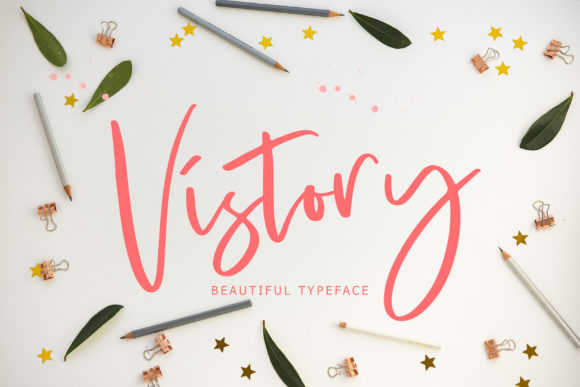
Vistory Font: Elevating Small Business Branding
As a small business owner, finding the perfect typeface to represent your brand’s unique voice is often one of the most critical design decisions you will make. Vistory is an exquisite handwritten font that serves as a versatile foundation for entrepreneurs seeking to balance elegance with modern accessibility in their visual identity. When we talk about Script Handwritten styles in the context of commercial branding, we are looking for more than just decoration; we need a tool that communicates trust and personality instantly. This specific typeface stands out among Fonts because it bridges the gap between traditional calligraphy and contemporary design needs, making it an invaluable asset for everything from product packaging to social media content.
Vistory for Product Packaging and Label Design
Integrating Vistory into your physical goods requires understanding how this Script Handwritten style translates from screen to print on tangible materials. For makers and sellers, packaging is often the first physical touchpoint a customer has with your brand, and using premium Fonts like this one can significantly elevate the perceived value of your items. The masterful design ensures that even when scaled down for ingredient lists or care instructions, the letterforms retain their integrity and charm without becoming illegible clutter.
Consider the practical application for a handmade candle business or an artisanal bakery. You might use Vistory for the primary product name on the label to evoke warmth and craftsmanship, while reserving a clean sans serif for the regulatory text. This contrast not only aids readability but also creates a visual hierarchy that guides the customer’s eye exactly where you want it. Because Vistory maintains classy calligraphic influences while feeling contemporary, it avoids looking dated or overly fussy, which is essential for brands targeting a modern demographic that still appreciates heritage and quality. Whether you are designing sticker seals, tissue paper patterns, or shopping bag stamps, this font provides a consistent thread of sophistication that ties disparate packaging elements together into a cohesive unboxing experience.
Enhancing Customer Trust Through Consistent Typography
Trust is built through repetition and recognition, and utilizing Vistory across your customer-facing materials helps establish a reliable visual rhythm. In the crowded marketplace of small business, consistency signals professionalism; when your thank-you cards, invoice headers, and shipping labels all share the same distinctive typographic voice, customers subconsciously register your brand as established and attentive to detail. This particular typeface excels here because its fresh aesthetic prevents your communications from feeling stuffy, while its structured calligraphic roots assure clients that they are dealing with a legitimate enterprise rather than a hobbyist.
- Thank-You Cards: Use Vistory for the "Thank You" header to add a personal, human touch that feels genuinely handwritten rather than digitally stamped.
- Business Cards: Apply the font to your name or business title to create a memorable first impression that distinguishes you from competitors using standard system fonts.
- Certificates and Guarantees: Leverage the elegant flow of the letters to make official documents feel special and valued by the recipient.
- Email Signatures: Incorporate a static image of your name in Vistory to bring brand consistency into digital correspondence without risking rendering issues across email clients.
Vistory for Social Media Graphics and Digital Marketing
Digital visibility relies heavily on stopping the scroll, and Vistory offers the visual weight necessary to capture attention in social media feeds and digital advertisements. As entrepreneurs managing our own marketing, we need Fonts that remain legible at thumbnail sizes while still conveying emotion and style within a square or vertical format. The contemporary freshness of this Script Handwritten typeface makes it particularly effective for Instagram stories, Pinterest pins, and Facebook ad overlays where space is limited and impact must be immediate.
When creating content for platforms like TikTok or Reels, using Vistory for text overlays can help reinforce brand recall even in video format. Unlike generic cursive fonts that may blur or become difficult to read against busy backgrounds, the deliberate construction of this font holds up well against photographic textures and video motion. For service providers such as coaches, photographers, or consultants, using this typeface in quote graphics or testimonial highlights adds a layer of empathy and approachability that standard bold sans serifs often lack. It suggests that there is a real person behind the account, fostering the parasocial connection that drives engagement and eventual sales in the creator economy.
Strategic Font Pairing for Website Headers and Menus
A successful brand identity rarely relies on a single typeface, and pairing Vistory with complementary Fonts is essential for maintaining usability across your website and printed menus. While this Script Handwritten gem shines as a display font for headlines, logos, and accent elements, it should typically be balanced with a highly readable body font to ensure your site remains accessible and your menu prices are clear. The goal is to let Vistory provide the flavor and personality while a neutral serif or geometric sans serif handles the heavy lifting of information delivery.
For a café or restaurant owner, this pairing strategy is vital. Imagine a chalkboard menu where the category titles like "Espresso Bar" or "Fresh Pastries" are rendered in Vistory to set the mood, while the item descriptions and prices are set in a simple, high-contrast typeface. This approach maintains the boutique atmosphere without sacrificing the customer's ability to quickly scan and order. On e-commerce sites, use Vistory for banner announcements, collection titles, and button text that requires emotional resonance (like "Shop the Sale"), but stick to web-safe standards for product descriptions and checkout forms. Testing these combinations on mobile devices is non-negotiable; what looks spacious on a desktop monitor can feel cramped on a phone screen, so always verify that the intricate details of the calligraphy do not get lost at smaller viewport widths.